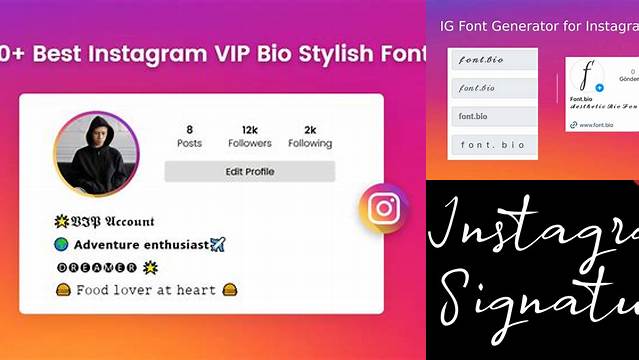
Cursive Font Generator: Level Up Your Instagram!
Hey guys! Are you looking to spice up your Instagram game? One of the easiest ways to make your profile stand out is by using unique and eye-catching fonts. And guess what? Cursive fonts are a fantastic way to add a touch of elegance and personality to your bio and captions. But, how do you actually get those cool cursive fonts on Instagram since the app itself has a limited selection? That’s where a cursive font generator comes in handy! Let's dive into the world of cursive fonts and explore how you can effortlessly create stunning text for your Instagram profile.
What is a Cursive Font Generator?
In this digital age, a cursive font generator is an online tool that allows you to convert regular text into various stylish cursive fonts. These generators work by using Unicode characters, which means the fonts you create aren't actually fonts in the traditional sense. Instead, they are sets of special characters that resemble cursive writing. This is crucial because Instagram (and many other social media platforms) doesn't allow you to upload custom fonts directly. By using Unicode, these generators create text that can be copied and pasted into your Instagram bio, captions, comments, and even stories. A top-notch cursive font generator provides a wide array of cursive styles, ensuring you find the perfect match for your aesthetic. Whether you prefer a classic, flowing script or a modern, bold cursive, these tools offer something for everyone. The best part? They are incredibly user-friendly! All you have to do is type your text into the generator, and it instantly converts your words into a variety of cursive fonts. Then, you simply copy the font you love and paste it into your Instagram profile. It’s that easy! Furthermore, utilizing a cursive font generator can significantly enhance your brand's online presence. A consistent and visually appealing aesthetic is vital for attracting followers and creating a lasting impression. By incorporating unique cursive fonts, you can set your profile apart from the crowd and make your content more memorable. So, whether you're a business aiming to create a professional image or an individual looking to add a personal touch, a cursive font generator is an invaluable tool in your Instagram arsenal. In addition to their aesthetic appeal, cursive fonts can also improve the readability of your content. While a standard font can sometimes feel monotonous, a touch of cursive can break up the text and make it more engaging for your audience. This is particularly useful for longer captions or bios where you want to maintain your reader's attention. By strategically using cursive fonts, you can highlight key phrases, add emphasis, and guide your followers' eyes to the most important information. So, go ahead and explore the many possibilities that cursive fonts offer and transform your Instagram presence today!
Why Use Cursive Fonts on Instagram?
Okay, so why bother using cursive fonts on Instagram in the first place? Well, there are several compelling reasons! First and foremost, it's a fantastic way to make your profile stand out. With millions of users on Instagram, it can be tough to get noticed. Using a unique cursive font can help your bio and captions catch the eye and leave a lasting impression. Think of it as adding a visual signature to your profile. When people see your stylish cursive text, they’ll instantly recognize it as your brand. This is especially important if you're trying to build a consistent online presence. Beyond aesthetics, cursive fonts can also convey a certain vibe or emotion. A flowing, elegant cursive might be perfect for a beauty blogger, while a bolder, more modern script could suit a fitness influencer. The font you choose can communicate a lot about your personality and the message you want to send. It's like choosing the right outfit for an occasion – the font should complement your content and overall brand identity. Another significant advantage of using cursive fonts is that they can improve readability. Let's face it, walls of text can be intimidating. Adding a touch of cursive can break up the monotony and make your captions more engaging. You can use cursive to highlight key phrases, add emphasis, or simply create a more visually appealing layout. This is particularly useful for longer captions where you want to keep your audience's attention. Moreover, using cursive fonts demonstrates creativity and attention to detail. It shows that you've put thought and effort into your profile, which can enhance your credibility and attract more followers. People appreciate a well-curated feed, and the right font can be the perfect finishing touch. Cursive fonts can also help you express your personality more authentically. Instagram is all about showcasing who you are, and your font choice is another way to do that. Whether you're aiming for a sophisticated, playful, or artistic vibe, there's a cursive font out there that can capture your unique style. So, if you're looking to elevate your Instagram game, don't underestimate the power of cursive fonts! They're a simple yet effective way to make your profile more visually appealing, engaging, and reflective of your brand.
How to Use a Cursive Font Generator
Using a cursive font generator is super easy, guys! Let me walk you through the process step by step so you can start creating awesome text in no time. First things first, you'll need to find a reliable cursive font generator online. There are tons of options out there, so do a quick Google search for "cursive font generator for Instagram." You'll find a variety of websites that offer this service, each with slightly different features and font styles. Once you've chosen a generator, the next step is to simply type your text into the provided input box. This could be anything – your bio, a caption, a comment, or even a message for your Instagram story. Most generators allow you to type as much text as you need, so don't be shy! After you've entered your text, the generator will automatically convert it into a variety of cursive fonts. This is where the fun begins! You'll see a list of different cursive styles, ranging from elegant scripts to bold, modern designs. Take your time to browse through the options and find the font that best suits your style and the message you're trying to convey. Many generators also offer customization options, such as adjusting the font size or adding special characters and symbols. Feel free to experiment and play around with these features to create the perfect look. Once you've found a cursive font that you love, the next step is to copy the generated text. Most generators have a handy "copy" button that makes this super easy. Just click the button, and the text will be automatically copied to your clipboard. Now, here comes the magic part – pasting the cursive text into your Instagram profile! Open the Instagram app and navigate to the section where you want to use the font. This could be your bio, a caption for a post, a comment, or a story. Simply paste the text from your clipboard into the desired field. Voila! Your regular text has been transformed into stylish cursive. Remember, the beauty of using a cursive font generator is that it allows you to create text that stands out and catches the eye. So, don't be afraid to get creative and experiment with different fonts and styles. With a little practice, you'll become a pro at adding flair to your Instagram profile in no time. And, the best part is, it's totally free and requires no special skills or software! So, what are you waiting for? Go ahead and try it out and see the difference it makes in your Instagram presence.
Tips for Using Cursive Fonts Effectively
Now that you know how to use a cursive font generator, let's talk about some tips for using them effectively on Instagram. It's not just about using a fancy font; it's about using it strategically to enhance your profile and content. First and foremost, consider your brand and aesthetic. The cursive font you choose should align with your overall style and message. If you're a fashion blogger, an elegant, flowing script might be perfect. If you're a fitness coach, a bolder, more modern cursive could be a better fit. Think about the vibe you want to convey and choose a font that reflects that. Another important tip is to use cursive fonts sparingly. Too much cursive can be overwhelming and make your text difficult to read. Instead, use cursive to highlight key words or phrases, add emphasis, or break up long blocks of text. For example, you might use cursive for your name in your bio or for the title of a caption. This will draw attention to those elements without making your entire profile look cluttered. Readability is key, guys! While cursive fonts can add a touch of elegance, they're not always the easiest to read, especially on small screens. Choose fonts that are clear and legible, and avoid using overly ornate or complicated styles. Test out different fonts and sizes to see what works best for your audience. You can even ask your friends for feedback to make sure your cursive text is easy on the eyes. Consistency is also crucial. Stick to a few cursive fonts that you love and use them consistently across your profile. This will help create a cohesive and professional look. Avoid using too many different fonts, as this can make your profile look messy and disorganized. A consistent font choice will also help your followers recognize your brand more easily. Furthermore, consider the context in which you're using cursive fonts. They might be perfect for a heartfelt caption or a stylish story, but they might not be appropriate for a serious or professional post. Think about the tone and message of your content and choose a font that fits the occasion. Using cursive fonts effectively also means paying attention to the overall design of your profile. Make sure your font choices complement your photos, colors, and other visual elements. A well-designed profile is visually appealing and engaging, so take the time to create a cohesive and stylish look. And lastly, don't be afraid to experiment! Cursive fonts are a fun and creative way to express your personality and make your profile stand out. Try out different fonts, sizes, and styles to see what works best for you. The key is to have fun and let your creativity shine!
Best Cursive Font Generators for Instagram
Alright, so you're ready to jump into the world of cursive fonts, but you're probably wondering, "Which cursive font generator should I use?" Don't worry, I've got you covered! There are tons of great options out there, each with its own unique features and font styles. Let's take a look at some of the best cursive font generators for Instagram that will help you create stunning text effortlessly. One of the most popular choices is LingoJam. LingoJam is a super user-friendly generator that offers a wide variety of cursive fonts, from elegant scripts to bold, modern styles. It's incredibly easy to use – just type your text into the input box, and LingoJam will instantly generate a list of cursive fonts for you to choose from. You can then simply copy and paste the font you like into your Instagram bio or caption. Another fantastic option is Cool Fancy Text Generator. This generator is packed with features, including a huge selection of cursive fonts, as well as other stylish text options like bold, italic, and even bubble letters! It also allows you to customize your text with symbols and special characters, giving you even more creative control. If you're looking for something a bit more unique, FontGet is definitely worth checking out. FontGet offers a curated collection of high-quality fonts, including many beautiful cursive styles. What sets FontGet apart is that it also provides downloadable font files, so you can use these fonts in other applications as well. However, for Instagram, you'll still be copying and pasting the generated text. For those who love simplicity, IGFonts.io is an excellent choice. This generator is specifically designed for Instagram, with a clean and intuitive interface. It offers a range of cursive fonts that are perfect for bios, captions, and stories. IGFonts.io also has a handy preview feature, so you can see how your text will look on Instagram before you copy it. Another great option is Fonts for Instagram. This generator offers a variety of cursive and other stylish fonts, and it's super easy to use on both desktop and mobile devices. It also has a feature that allows you to create a custom font by combining different styles and symbols, which is pretty cool! When choosing a cursive font generator, consider what features are most important to you. Do you want a wide selection of fonts? Customization options? A user-friendly interface? Once you know what you're looking for, it'll be easier to find the perfect generator for your needs. And remember, most of these generators are free to use, so you can try out a few different ones before you settle on your favorite. So, go ahead and explore these options and start creating amazing cursive text for your Instagram profile today!
So, there you have it, guys! A cursive font generator is a fantastic tool for adding a touch of personality and style to your Instagram profile. Whether you're looking to make your bio stand out, create eye-catching captions, or simply express your creativity, cursive fonts can help you achieve your goals. By now, you understand what a cursive font generator is, why you should use cursive fonts on Instagram, how to use a generator effectively, some tips for using them strategically, and some of the best generators available. Remember, Instagram is all about visual appeal, and the fonts you use play a significant role in creating a cohesive and engaging aesthetic. Using cursive fonts is a simple yet powerful way to elevate your profile and make a lasting impression on your followers. Don't be afraid to experiment with different fonts and styles to find what works best for you. Think about your brand, your message, and the overall vibe you want to convey, and choose fonts that reflect that. And always keep readability in mind – a stylish font is useless if it's too difficult to read. By using cursive fonts strategically and thoughtfully, you can enhance your profile, attract more followers, and express your personality in a unique way. So, go ahead and try out a cursive font generator today and see the difference it makes! It's a fun, easy, and free way to add a touch of elegance and creativity to your Instagram presence. And who knows, maybe your new font will be the thing that makes your profile truly stand out from the crowd. Happy font-generating, guys!